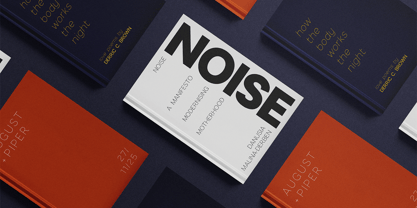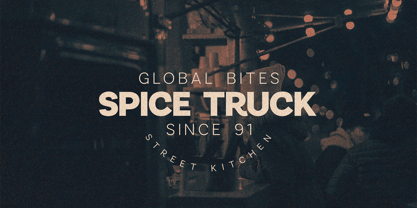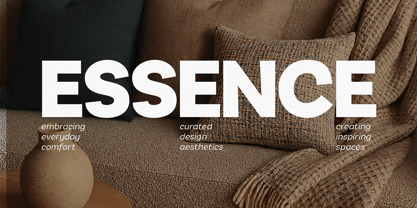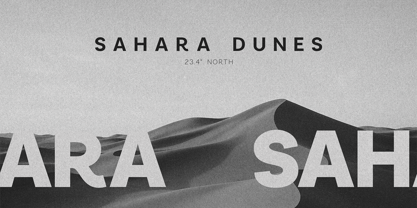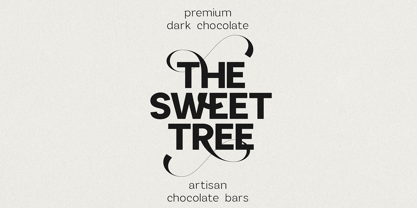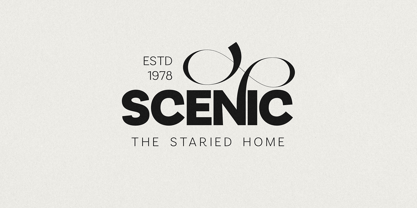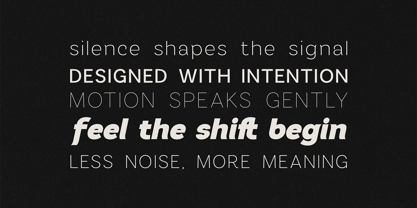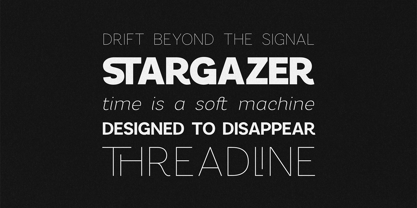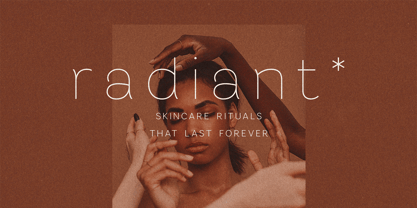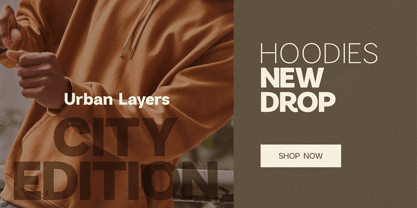
Omoro VF
by VP Creative Shop
The Omoro VF Font Family was designed by Vladimir Fedotov, Plamen Petrov and published by VP Creative Shop. Omoro VF contains 2 styles and family package options. More about this family
Omoro is a contemporary sans serif typeface designed to balance clean minimalism with expressive creative flair. Featuring variable font with matching italic, Modo adapts seamlessly from elegant thin lines to powerful bold statements. Its creative alternate glyphs and stylish ligatures add personality, making it perfect for branding, editorial layouts, packaging, logos, and digital experiences. With support for 85+ languages, Modo ensures global usability, covering extended Latin alphabets and essential typographic symbols. Whether you’re crafting sophisticated headlines, minimalist body text, or eye-catching displays, Modo offers a versatile typographic solution for modern designers.